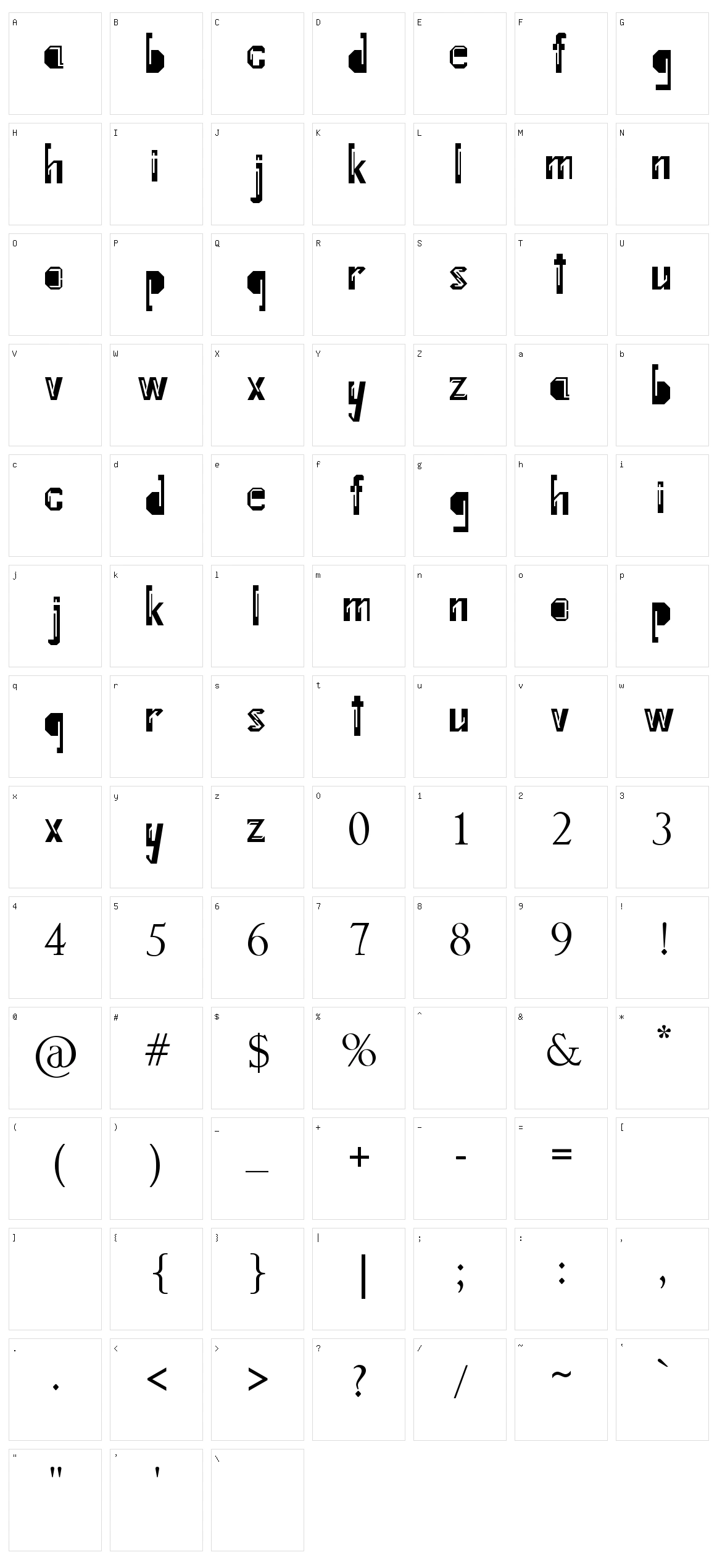
The free font Internal Fratture is carefully designed by Juan Camilo Ramon, showcasing a thoughtful balance of creativity and usability and falls under the Square font style. When you download the ZIP file, it contains only 10.98 KB of font files, making it lightweight and quick to download. Please review the license details below to understand permitted usage and distribution rights. If license information is not available, we recommend using this font for personal projects only or contacting the author directly for commercial usage permissions.